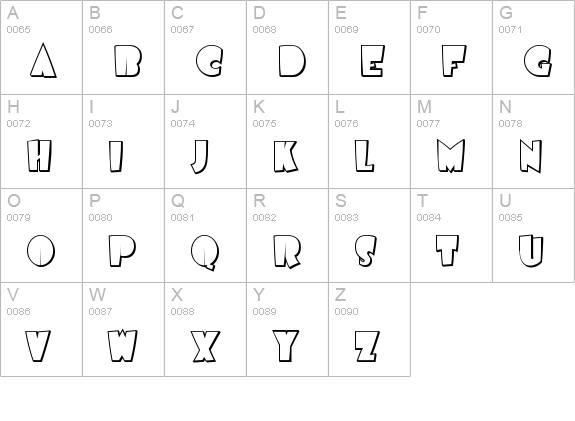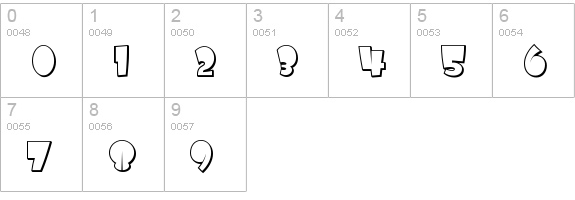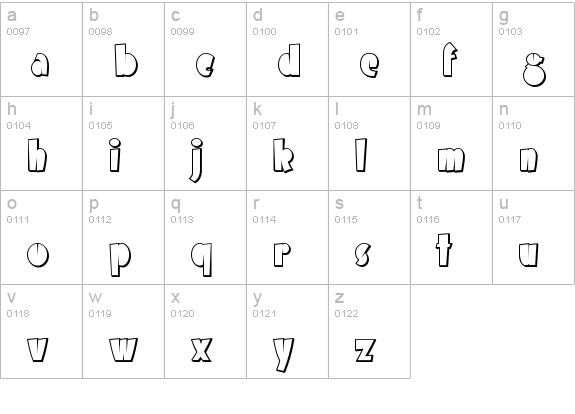
Airmole Shaded Font Details
Airmole Shaded font is a unique and modern typeface that exudes a sense of creativity and sophistication. Its sleek design and elegant curves make it perfect for a wide range of design projects, from branding to editorial design. The shading effect adds depth and dimension to the characters, giving them a dynamic and eye-catching appeal. This versatile font is available for free download at FontsMarket.com, making it accessible to designers and creatives looking to add a touch of flair to their work. Whether you're designing a logo, poster, or website, Airmole Shaded font is sure to make a bold statement and elevate your design to the next level. With its clean lines and contemporary style, this font is a must-have for anyone looking to add a modern touch to their projects.